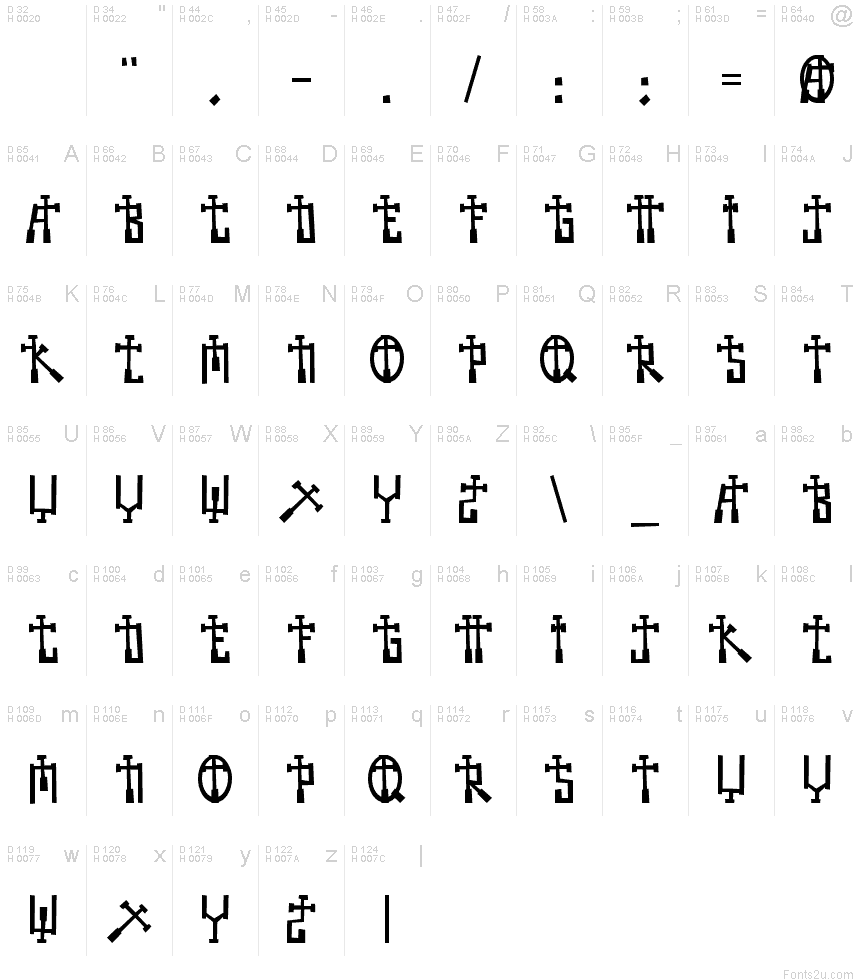
BECROSS
BECROSS font by B.O.Nelson/Brain Eaters Font Co. is a free horror display typeface. Bold, blocky letters rise like rows of graveyard crosses, with heavy verticals and stark horizontal arms that feel carved from stone. The tight, upright rhythm gives every word the weight of an old cemetery gate, creating a gritty, occult mood in a single glance.
Using BECROSS, headlines snap into a chilling, ritualistic structure that’s made for horror posters, Halloween flyers, haunted house signage, metal band logos, and dark-themed book or game titles. This free font works best at large sizes where its cross-shaped silhouettes can really punch through. Pair it with a simple geometric sans-serif for supporting text to keep layouts readable while BECROSS delivers the drama.